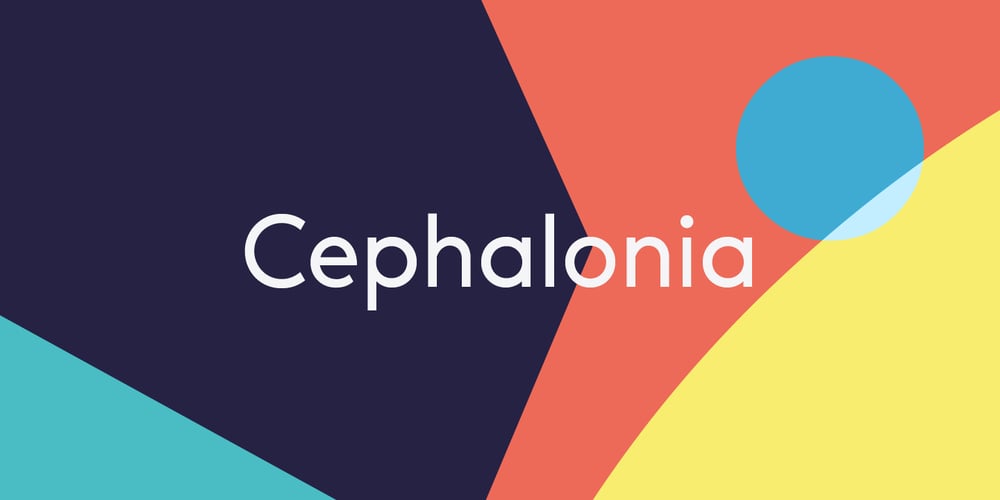
Cephalonia Font Family was designed by Pascal Barry and published by Design by Pascal. Cephalonia contains 1 styles and family package options. Cephalonia is a geometric sans-serif with a unique set of alternates that draw their inspiration from classical greek engravings. The crossbars in the alt characters O, E, F and D are the most notable examples of this greek influence. The landscape of Greece and in particular its islands were the inspiration behind the angular A, H and G, which conjure images of rolling hills and waves. Cephalonia’s alternate Q and ampersand are completely original designs. Cephalonia combines the simplicity and elegance of the most famous geometric sans-serifs while adding original embellishments that make it something new and exciting. The end result is a typeface that can evoke a classic feeling while simultaneously holding an edgy contemporary feel.